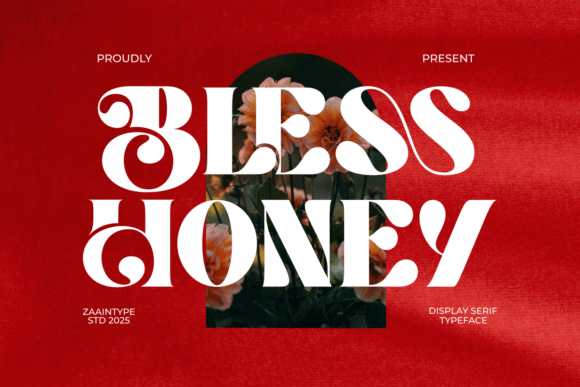
The Sweet Spot: Discovering Bless Honey Font
A First Impression: What Makes Bless Honey Special
Bless Honey is a charming serif typeface that blends timeless elegance with a soft, graceful touch. Designed with refined contrast and smooth curves, it evokes a sense of warmth and sophistication — perfect for branding, editorial designs, packaging, and high-end fashion. Each letter carries a delicate yet confident presence, making Bless Honey a graceful companion for projects that seek both beauty and character.
- ✨ Elegant and refined design that’s perfect for high-end projects
- ✅ Smooth curves and refined contrast for a sophisticated feel
- 💬 Delicate yet confident presence that’s perfect for branding and editorial designs
- 🎨 Highly versatile and can be used for a wide range of creative projects
- ⚠️ Limited availability of stylistic alternates, which may limit creative experimentation
- 🤔 Some users may find the font a bit too delicate for certain design applications
The Story Behind Bless Honey: Designer Inspiration
Bless Honey was designed by a team of typographers who sought to create a font that would blend timeless elegance with a soft, gracious touch. Inspired by classic serif typefaces from the 18th century, the designers aimed to create a font that would evoke a sense of warmth and sophistication. The result is a beautiful, refined typeface that’s perfect for high-end projects.
| What is Bless Honey Font best suited for? | Bless Honey Font is best suited for high-end branding, editorial designs, packaging, and fashion projects that require a sophisticated and elegant look. |
| Is Bless Honey a versatile font? | Yes, Bless Honey is a highly versatile font that can be used for a wide range of creative projects, from body text to headlines and titles. |
| Does Bless Honey support OpenType features? | Yes, Bless Honey supports OpenType features like ligatures, stylistic alternates, and swashes, which can be accessed in compatible design software. |
| Font Name | Bless Honey Font |
| Author | zaaintype |